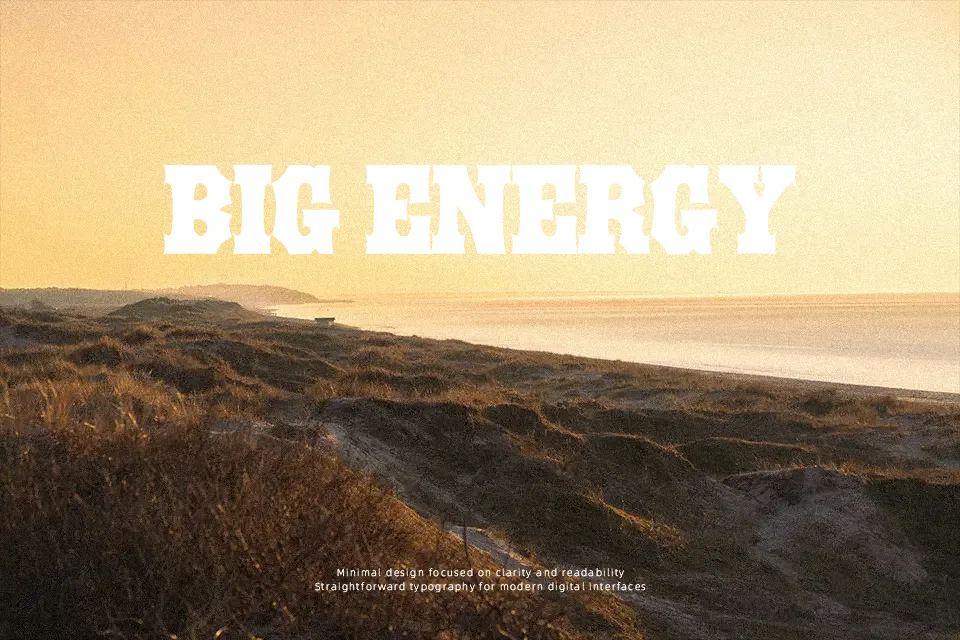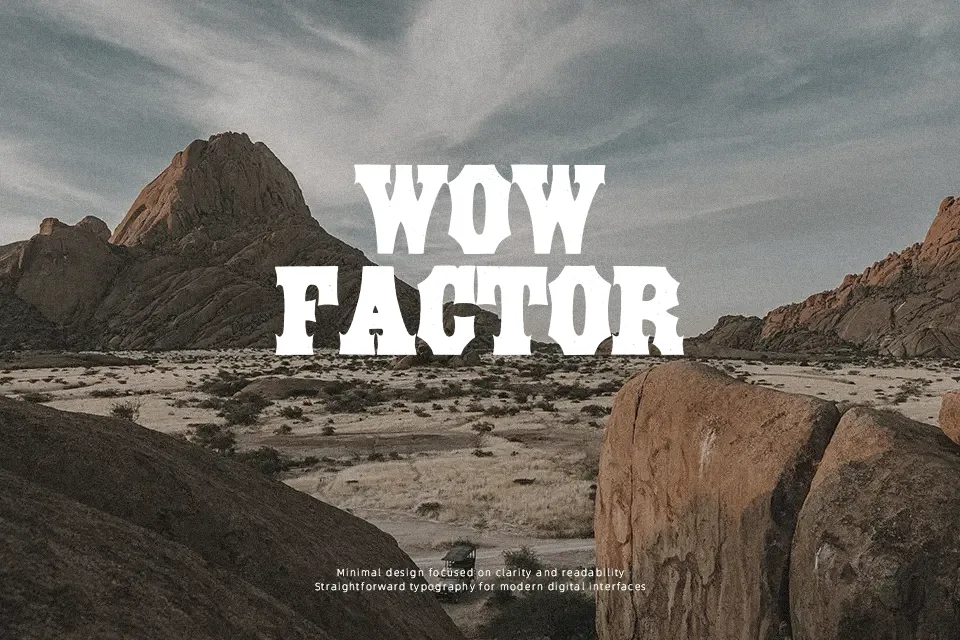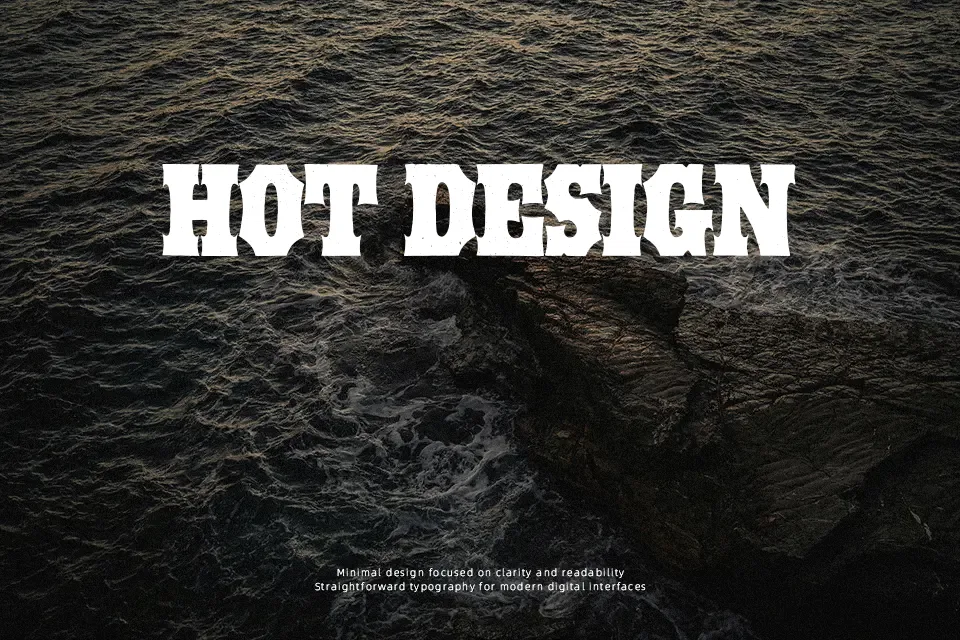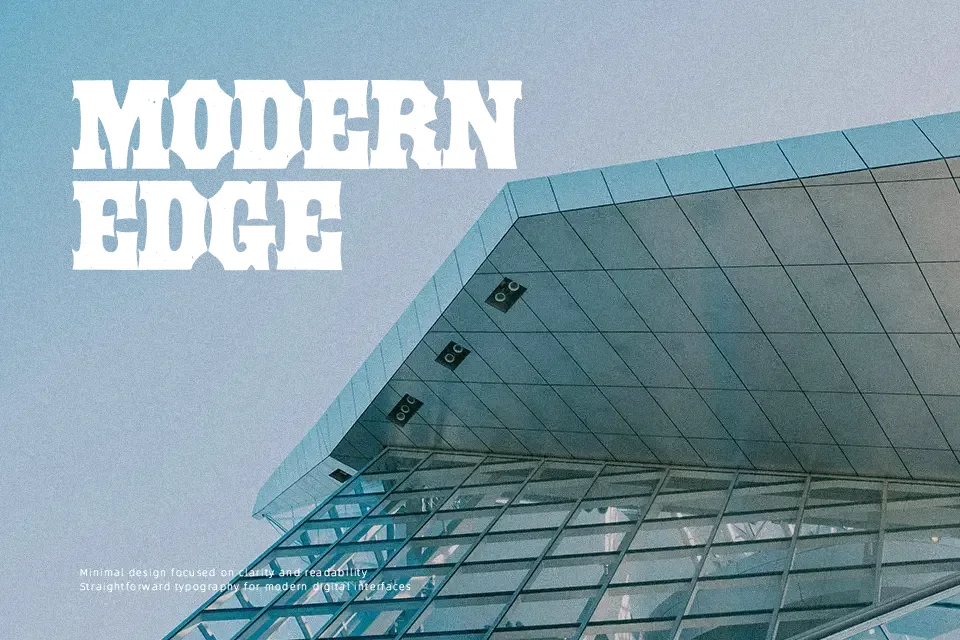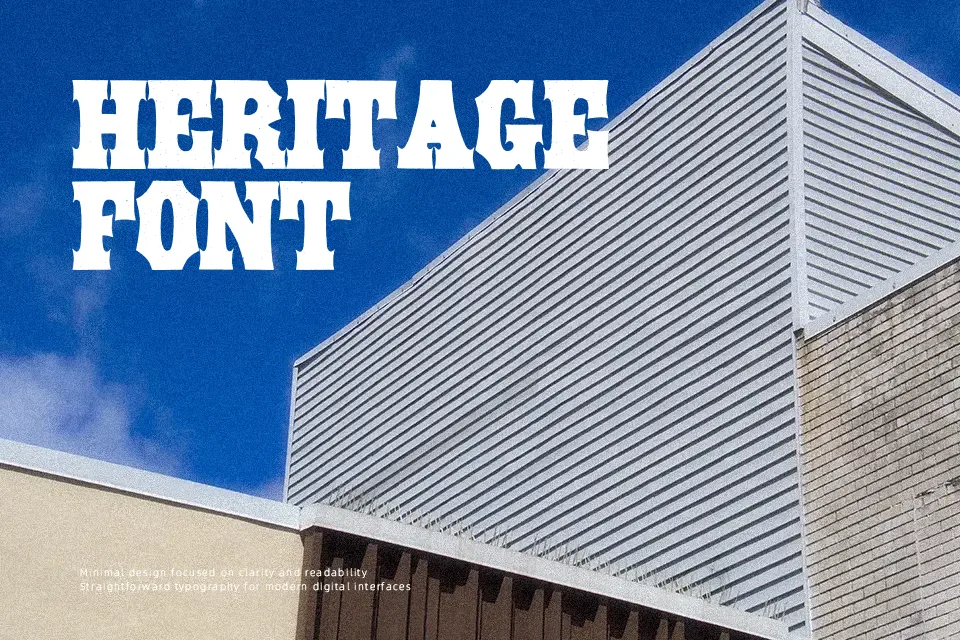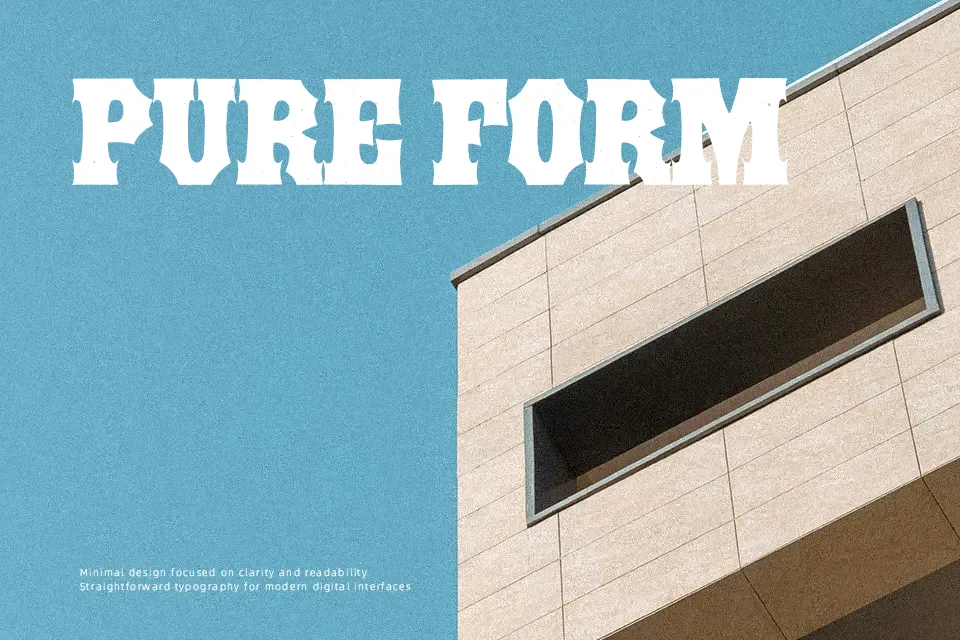
Strongbox Font
Strongbox Font performs most reliably in large-scale display settings where its substantial stroke weight and decorative mid-stem spurs can command immediate attention. The typeface features rigid vertical stems, thick horizontal slab serifs, and compact internal counters that establish a sturdy wood-type appearance. Consistent character widths and balanced letter spacing help preserve glyph recognition across short title sequences, storefront graphics, and rustic apparel graphics. However, the sheer density of the letterforms makes the design unsuitable for extended paragraphs or compact interface labels, where the heavy strokes quickly merge and reduce overall legibility. For standalone headlines and emblems, the design delivers dependable visual prominence.
Best For: vintage product packaging, saloon themed signage, apparel graphics, poster headlines
Not Ideal For: long paragraph text, mobile app body copy, legal documents, small interface labels